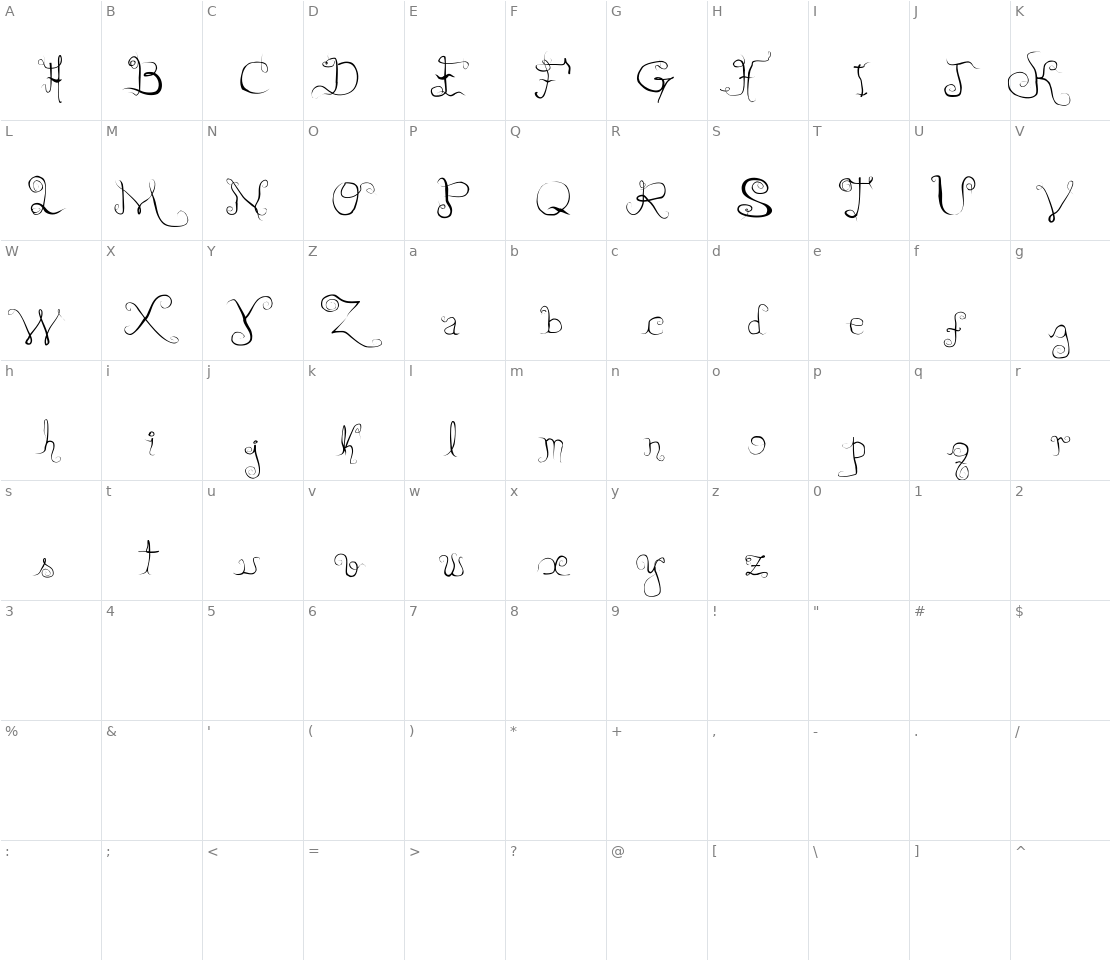
Dirty Lady
Dirty Lady is a thin, curly handwritten face with a playful, feminine energy that feels like someone doodling in the margins of a diary. The letterforms are whimsical and a little unpredictable, with looping strokes and decorative flourishes that give each word real personality. Best used for headlines, invitations, or packaging where you want something quirky and lighthearted without being too precious.